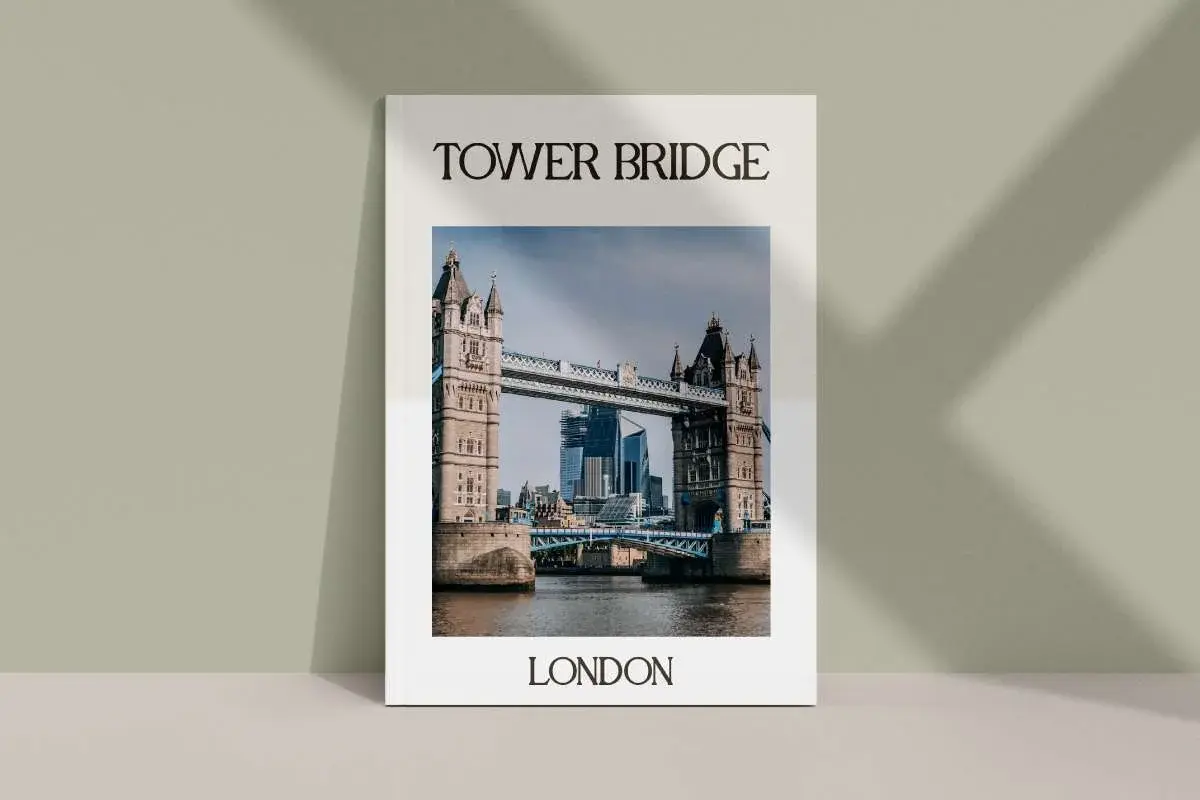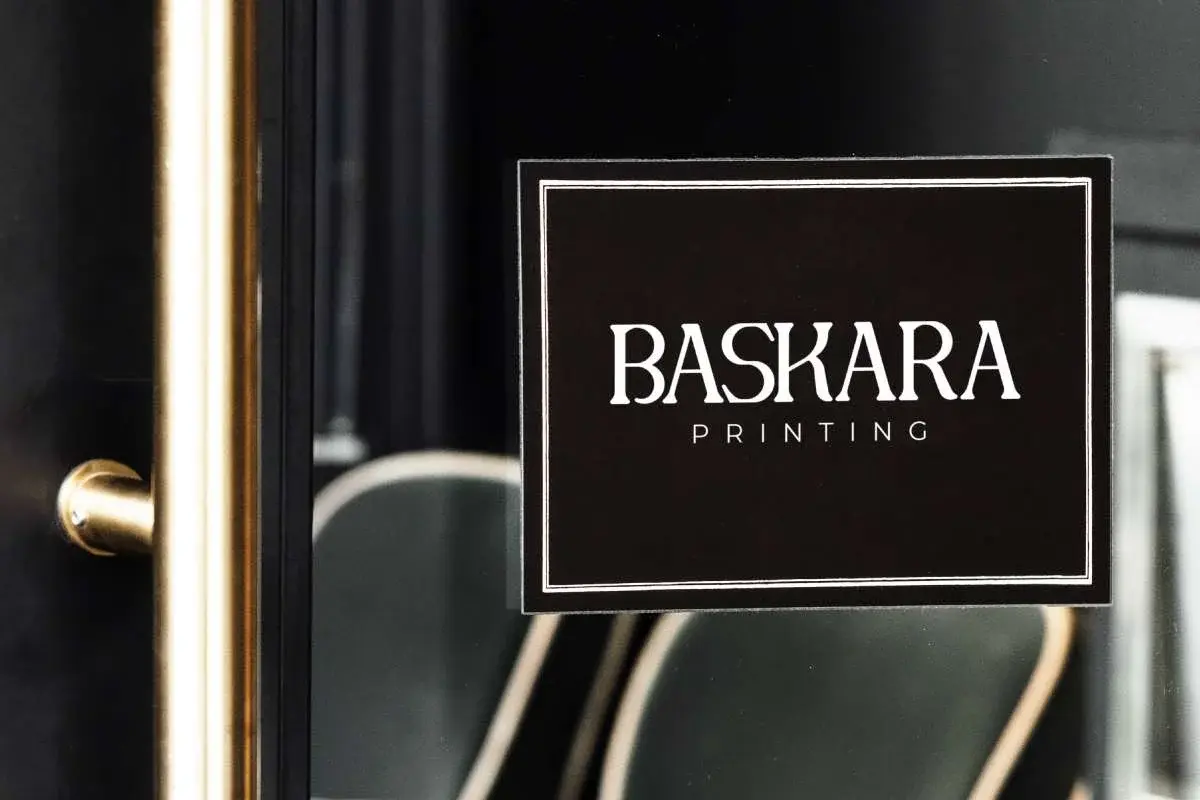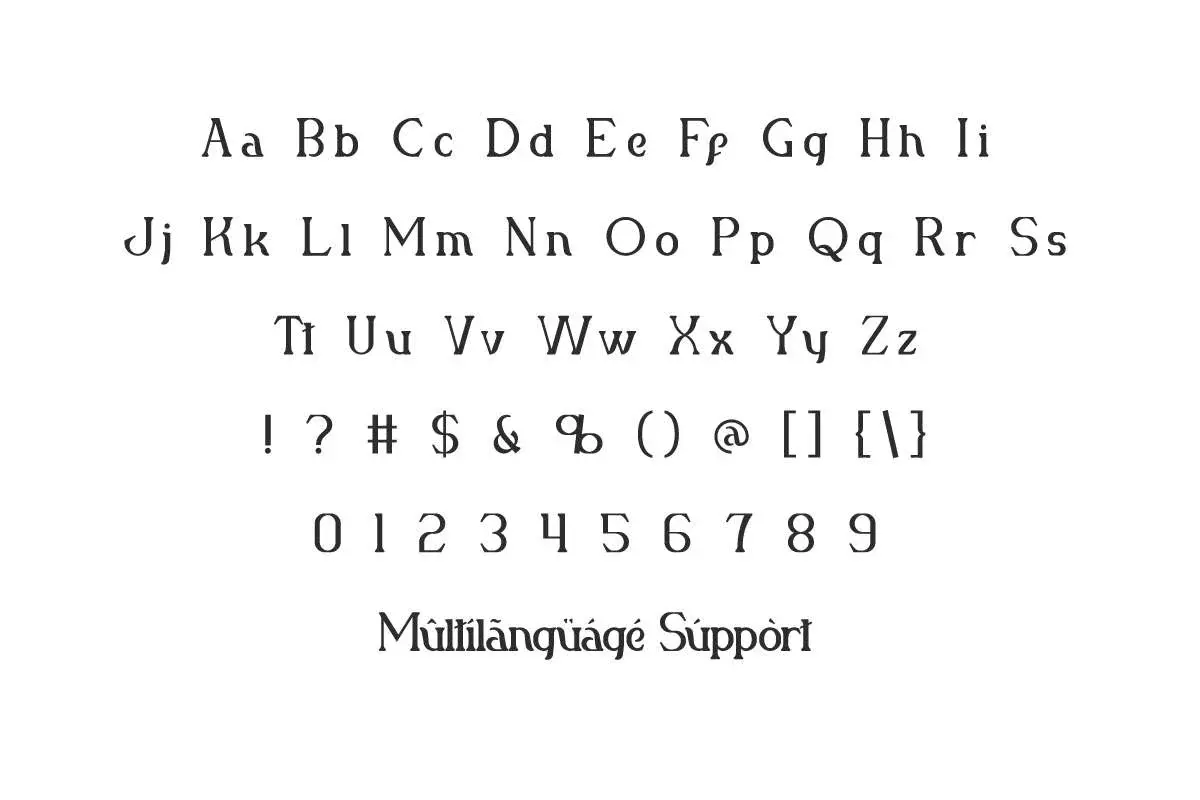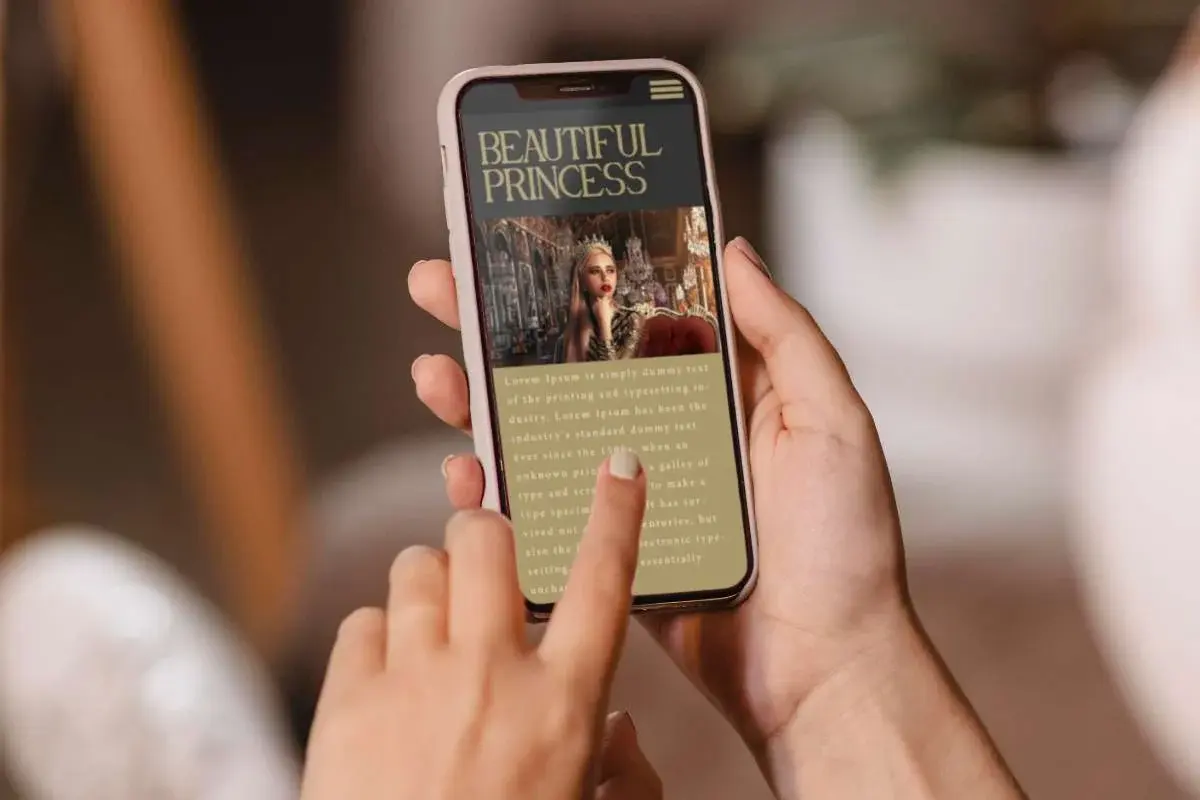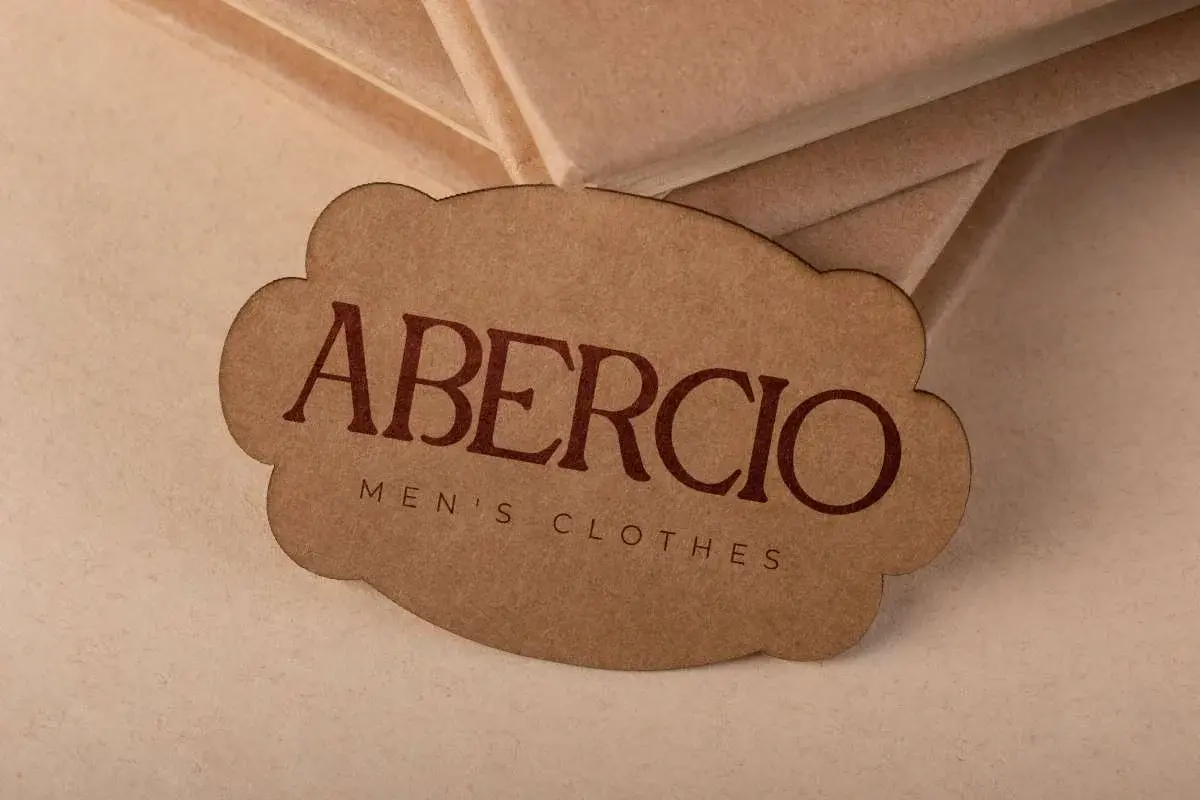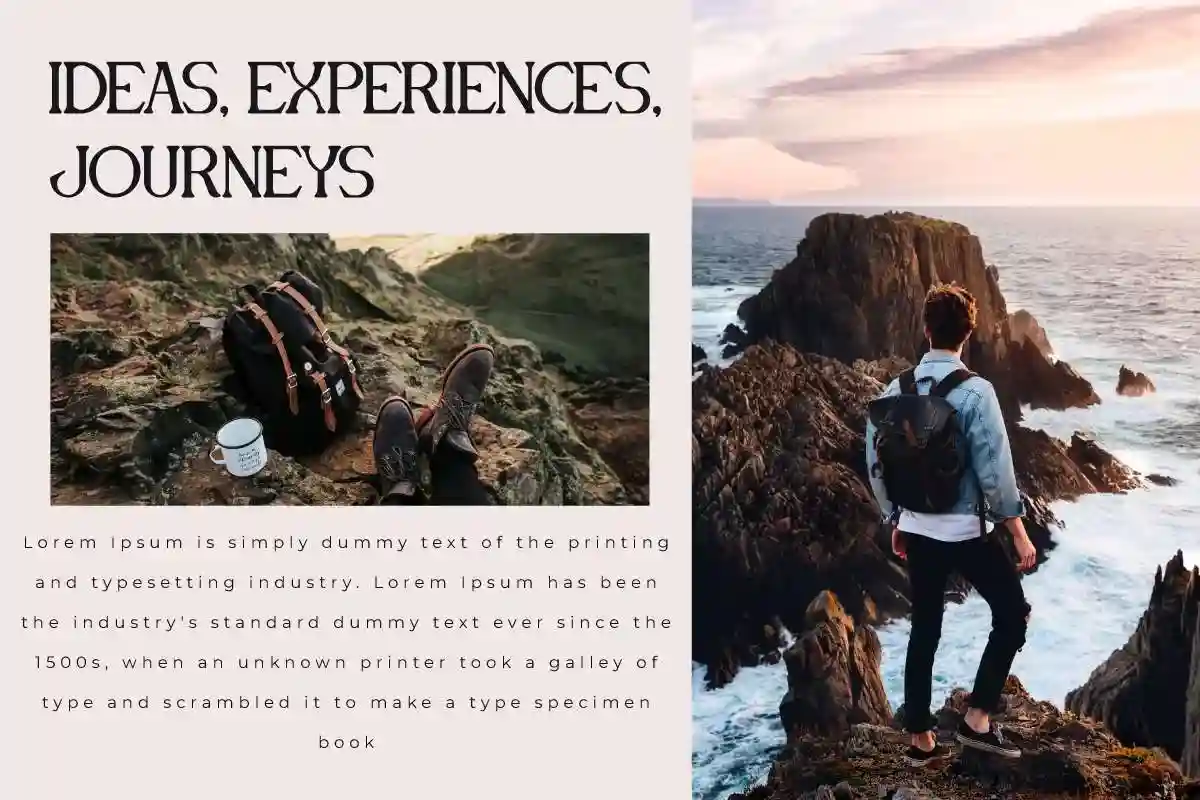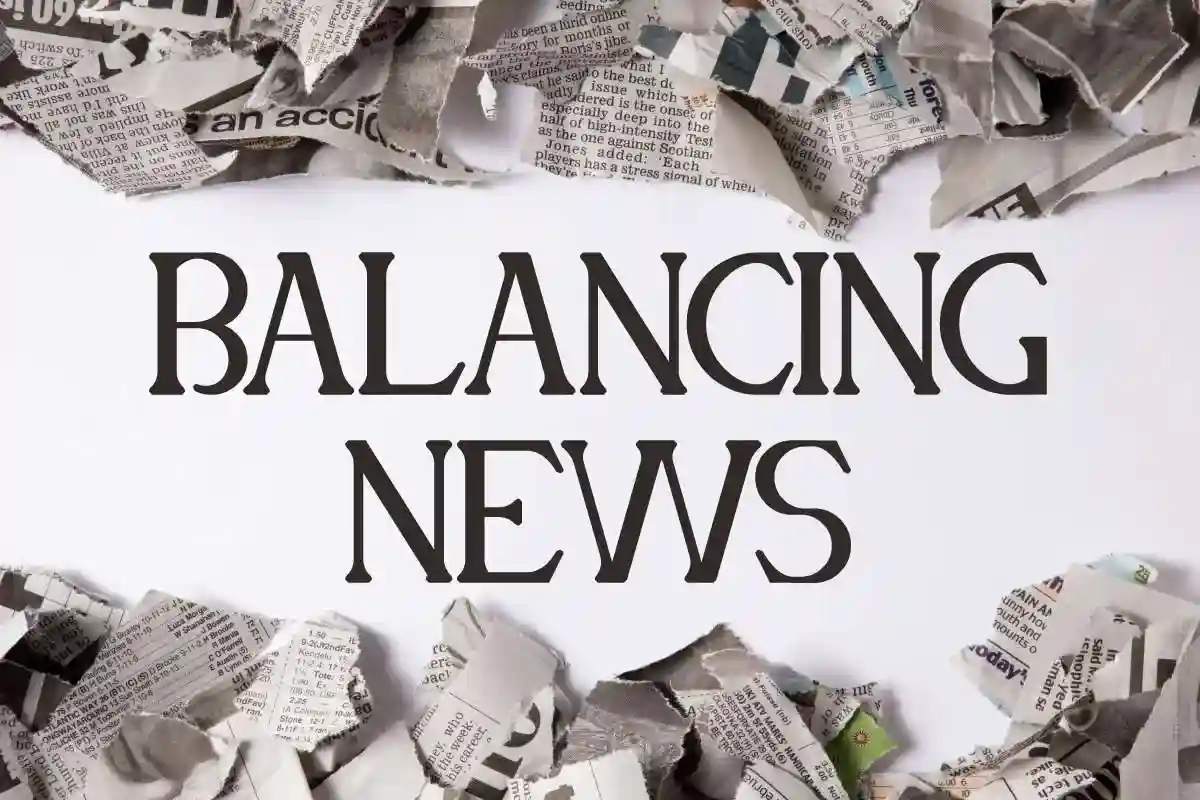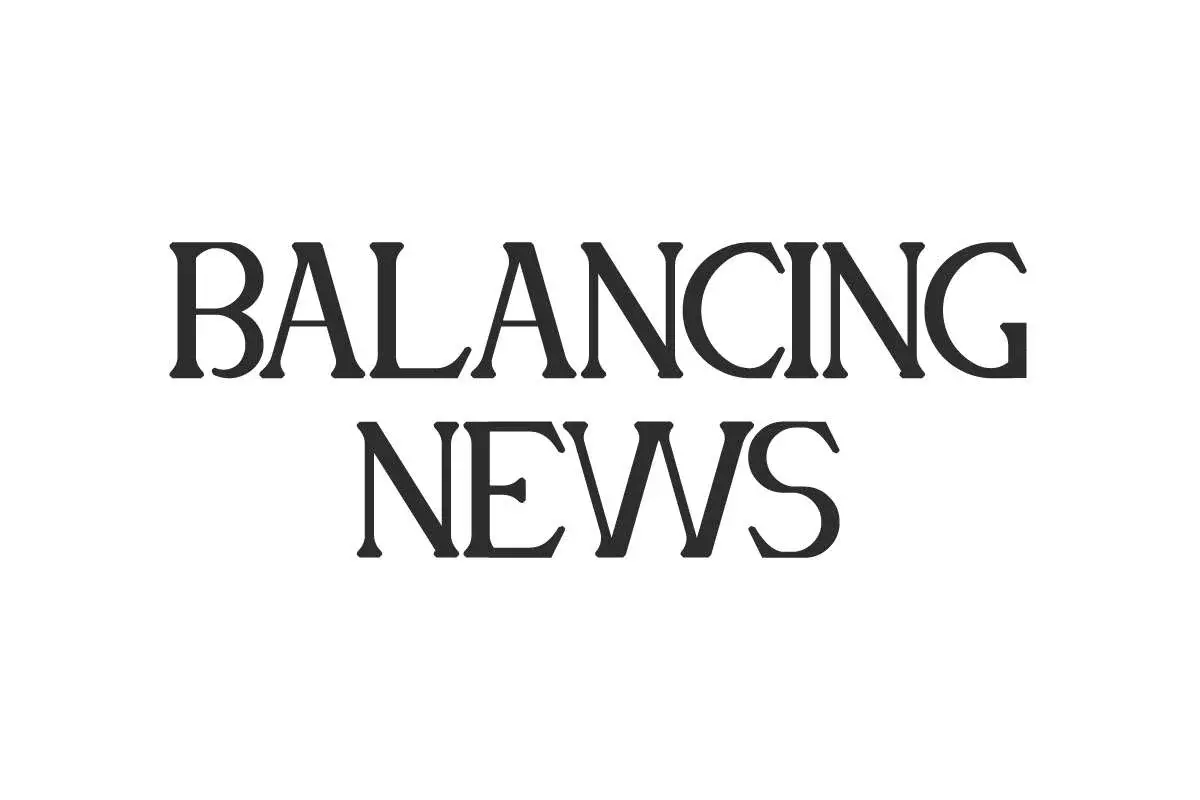
Balancing News Font is a serif display font with a stunning contemporary look. It will be perfect for header, newspaper, poster, sticker, and more.
Balancing News Font is a serif display font with a contemporary style. It will be able to elevate your designs to high level, such as apps, billboard, brand logo, brochure, business card, catalog, cover, embossed design, flyer, header, invitation, label, magazine catalog, mockup design, newspaper, poster, product packaging, quote, screen print, signage, stationery, sticker, title, website, etc.
Balancing News Font includes full set of Uppercase and Lowercase Basic Characters, Number, Punctuation, and Symbol. This is a newspaper writing style that will boost your business, such as advertisement, fashion designer, furniture, handicraft, historic place, journalist, lodging, men’s clothes, museum, news show, perfume brand, photography, printing, publishing, restaurant, spa salon, travel agency, and many more.